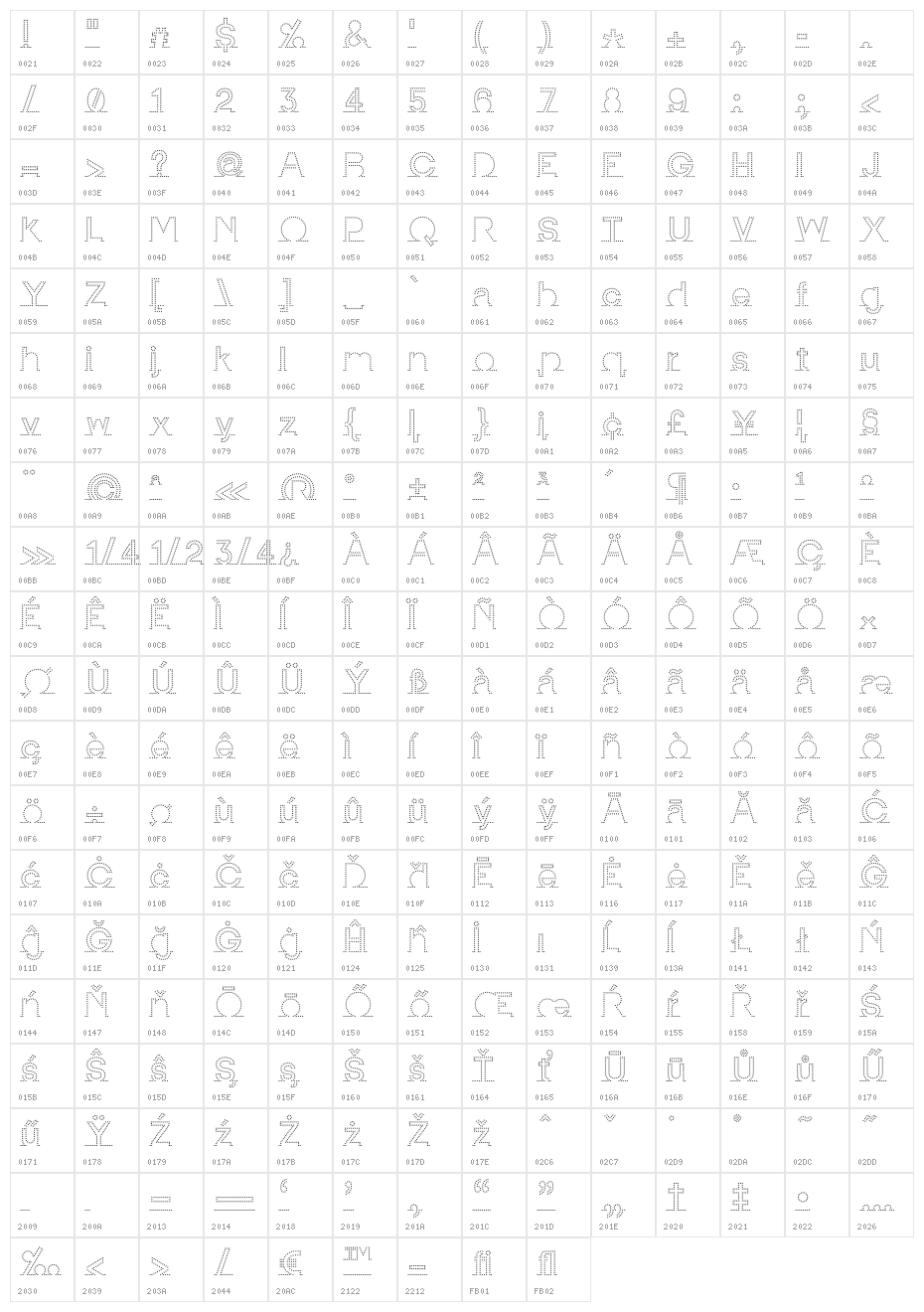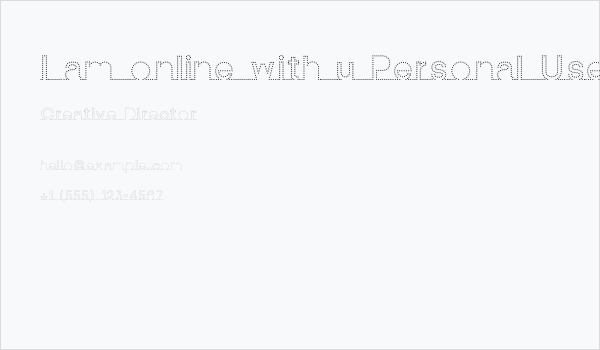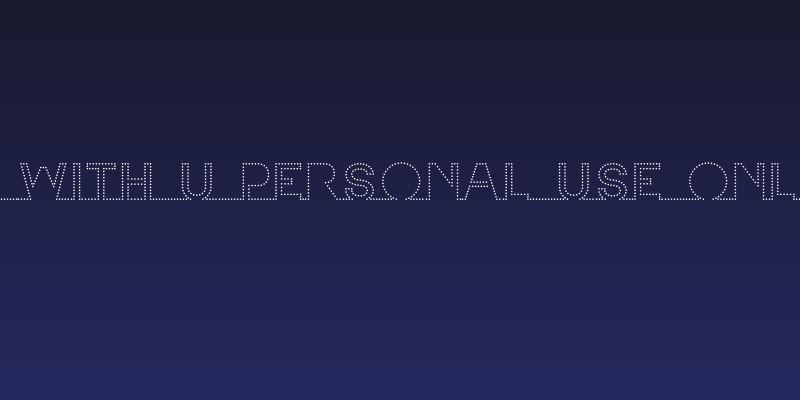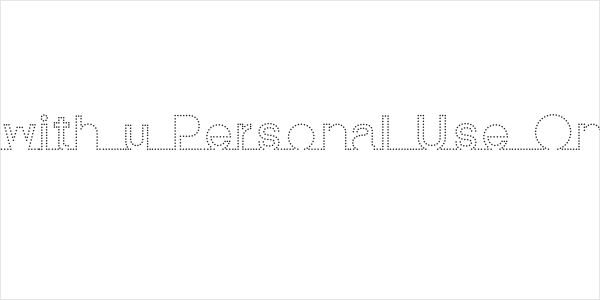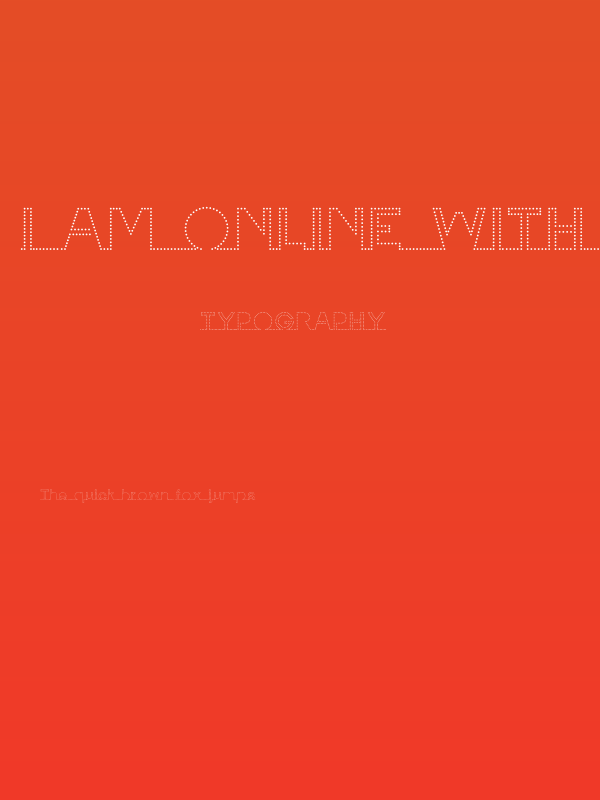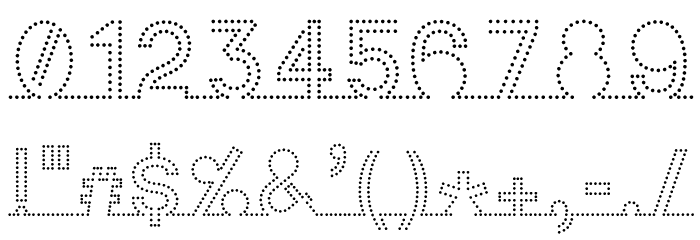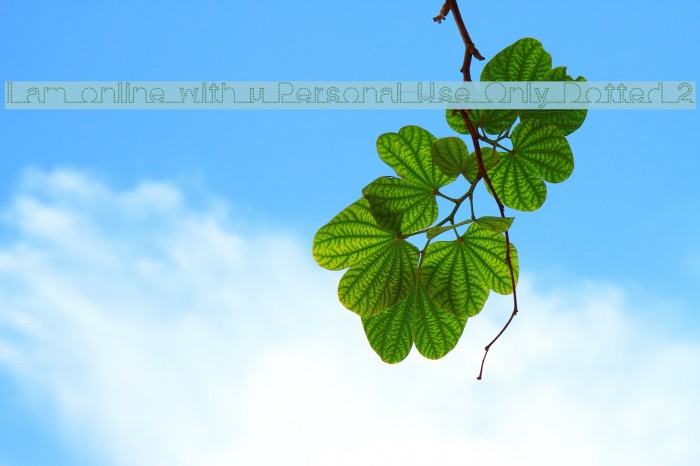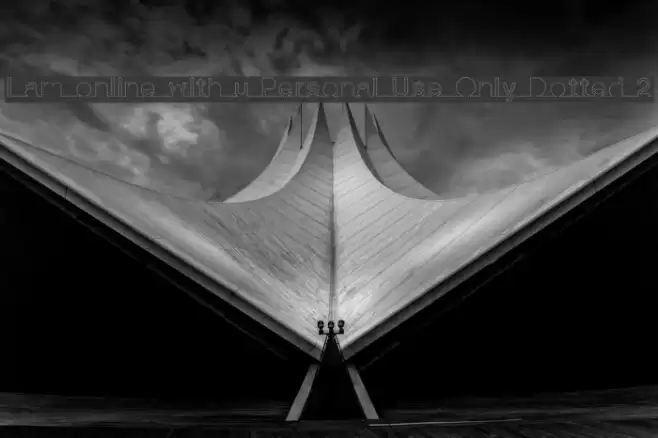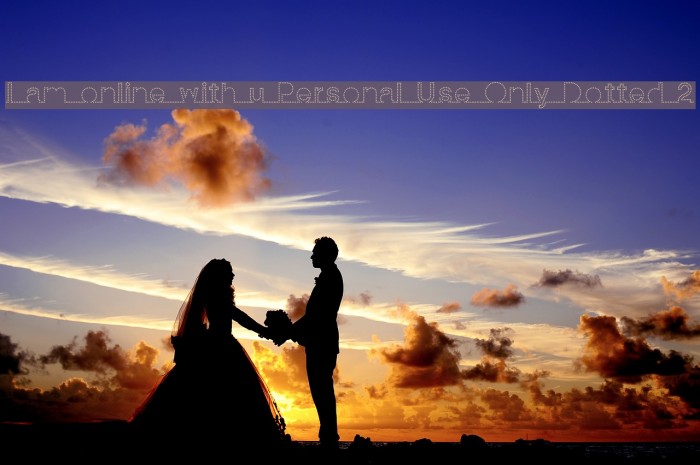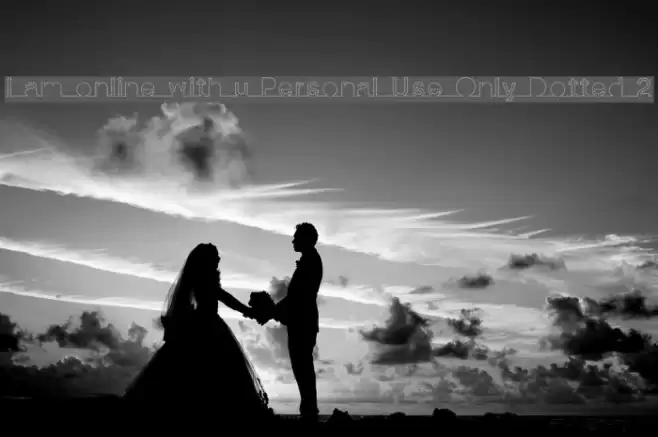
I am online with u Personal Use Only Dotted 2 Font
I am online with u Personal Use Only Dotted 2 Description
This font features a unique dotted design, where each character is composed of evenly spaced dots forming the outlines of letters and numbers. The uppercase and lowercase letters maintain a consistent style, with clean lines and geometric shapes. The numerals and special characters follow the same dotted pattern, providing a cohesive look across all elements. This font's playful and modern aesthetic makes it stand out, offering a visually engaging experience. The spacing between the dots is uniform, creating a sense of rhythm and balance. The overall style is decorative, making it suitable for creative and artistic projects.
| Use Case | Headlines, Logos, Creative projects |
| Proposed Projects | Ideal for creative projects such as posters, invitations, and branding materials where a unique and eye-catching font is desired. |